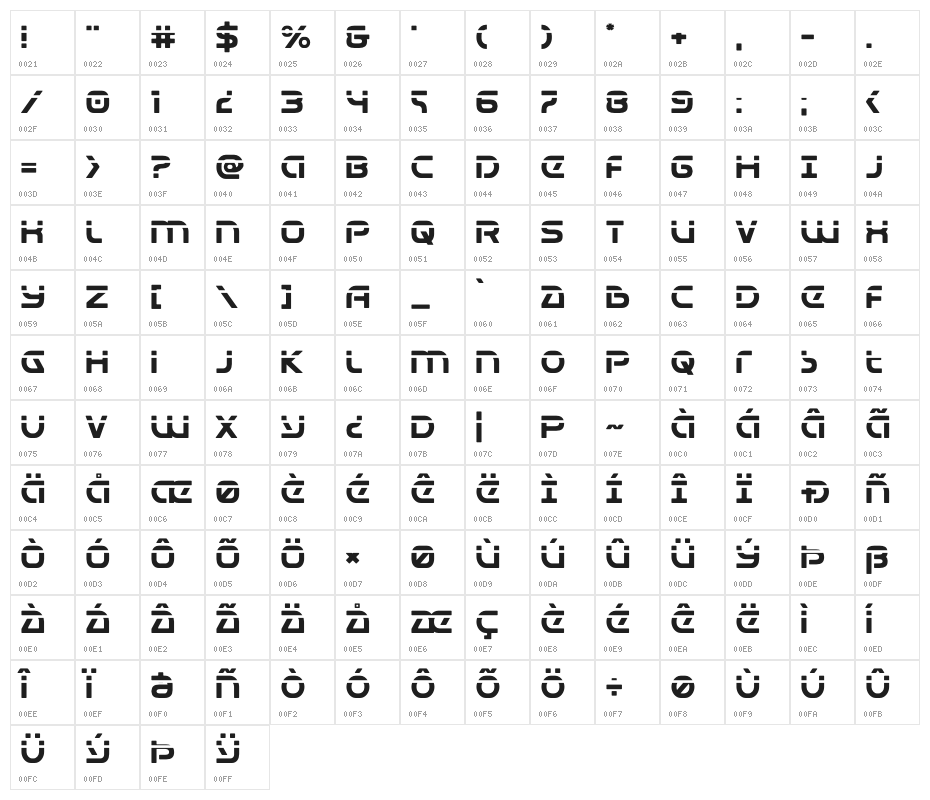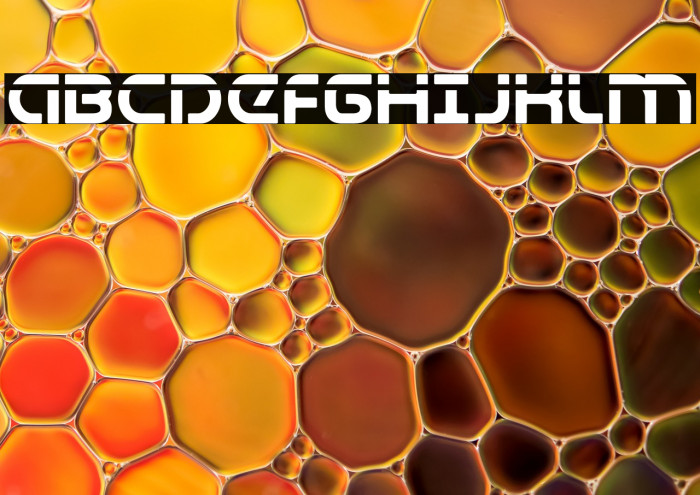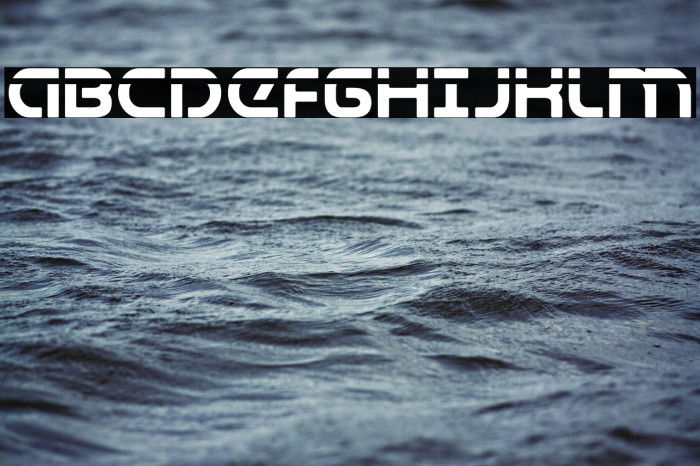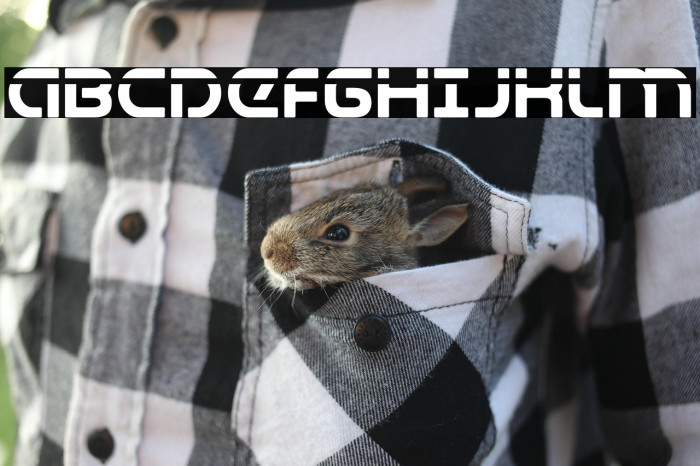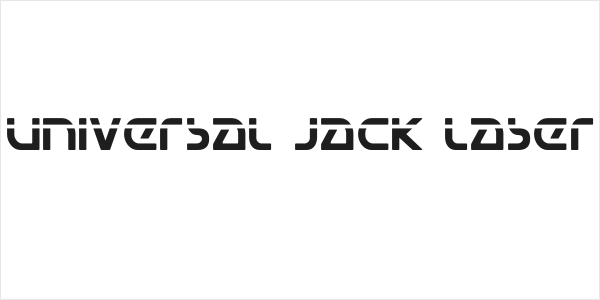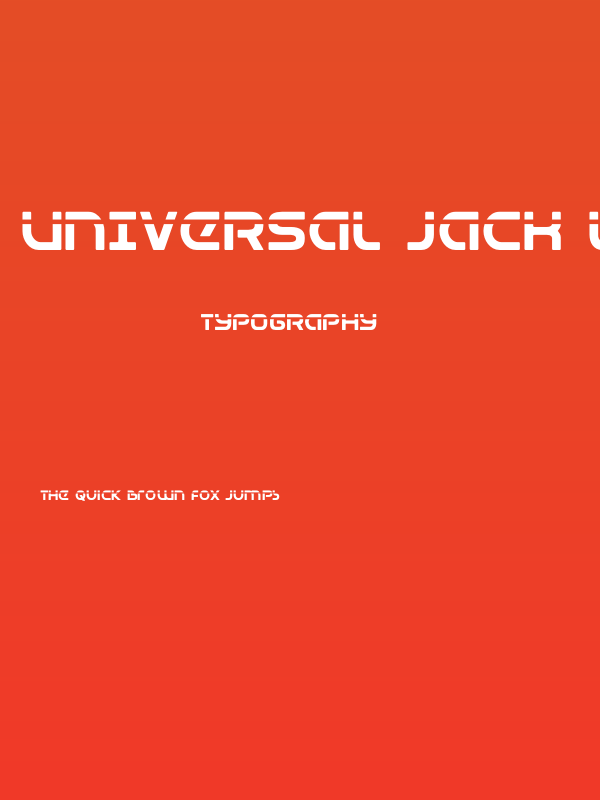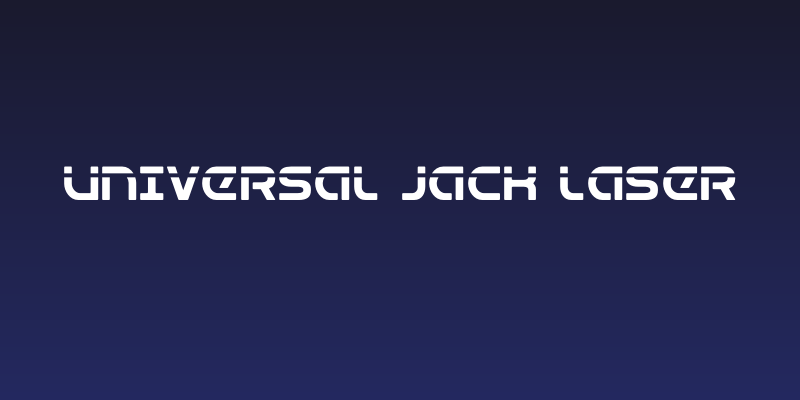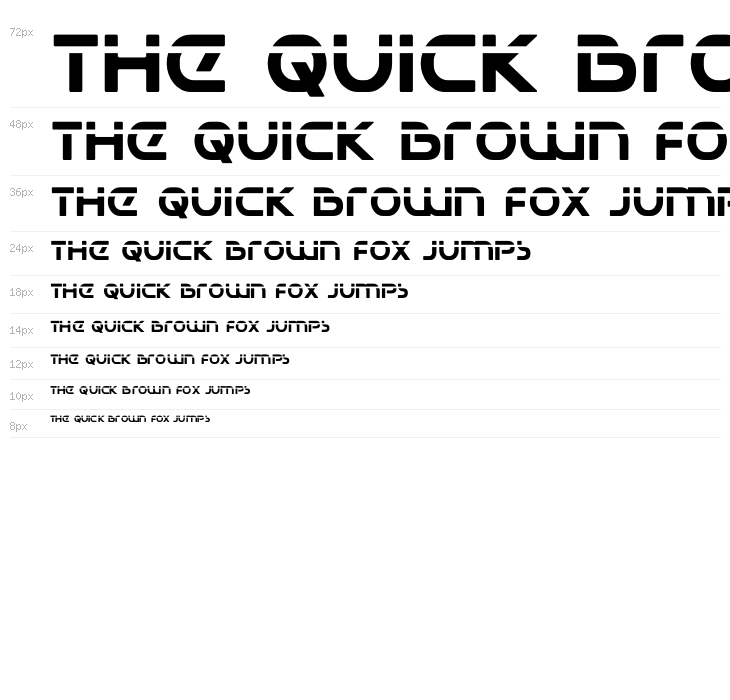
Universal Jack Laser Font
Universal Jack Laser Description
This font features a futuristic and geometric design, characterized by its bold and angular letterforms. The characters are constructed with a stencil-like appearance, incorporating breaks in the strokes that add a dynamic and industrial feel. The uppercase and lowercase letters maintain a consistent style, with rounded edges and uniform stroke widths that create a cohesive look. The numerals and special characters follow the same design principles, ensuring visual harmony across all glyphs. This font's distinct style makes it suitable for projects that require a modern and edgy aesthetic.
| Proposed Projects | Ideal for technology branding, sci-fi movie posters, video game titles, and modern product packaging. |